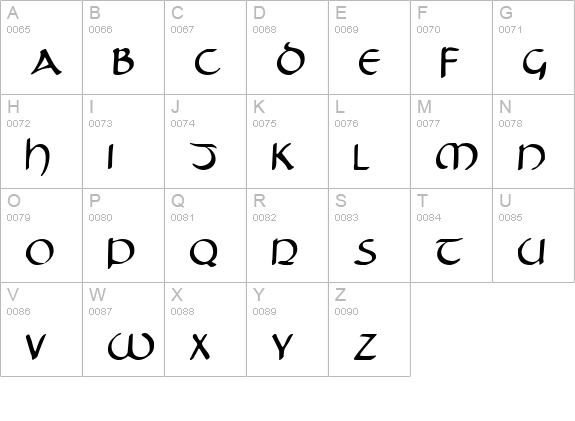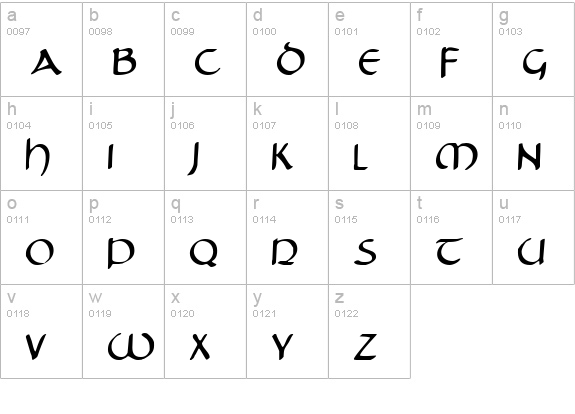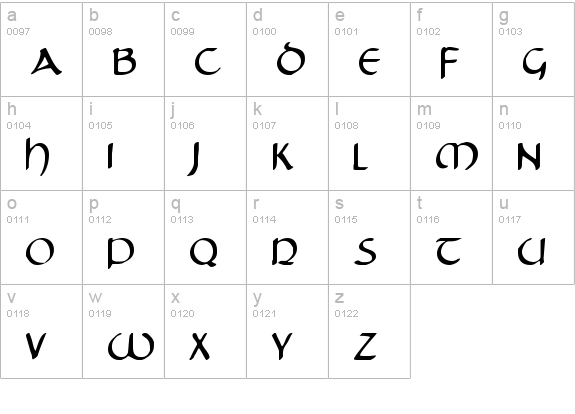
Tristram font is a stunning display typeface that exudes elegance and sophistication. Its intricate details and graceful curves make it a perfect choice for projects that require a touch of class and refinement. With its timeless appeal and versatility, Tristram font is a must-have for designers and creatives looking to make a bold statement. The best part? Tristram font is available for free download at FontsMarket.com. This means you can easily access this beautiful typeface and incorporate it into your designs without any cost. Whether you're working on a branding project, a logo design, or any other creative endeavor, Tristram font will elevate your work and leave a lasting impression. Don't miss out on this opportunity to enhance your design projects with Tristram font. Download it for free today and unleash your creativity with this exquisite typeface.